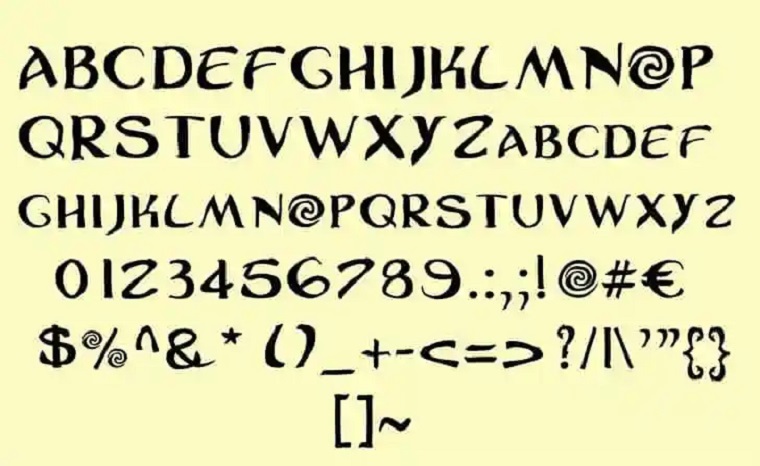
Moana’s Font is a particular type of writing that brings the spirit of the Disney movie Moana to your words. It’s like having a mini tropical vacation in every letter! These letters are designed to look like they’re part of Moana’s world, with a touch of adventure and a splash of Polynesian fun.
You can use Moana’s Font to create cool invitations for your Moana-themed parties, make colorful posters, or even write fun stories with a tropical twist.
It’s a font that’s great for kids and grown-ups who love the magic of Disney’s Moana. So, let your imagination set sail with Moana’s Font and explore the wonders of the Pacific Islands!
It is a sans-serif typeface that came into being by JoannaVu in 2016. The font was created after being inspired by one of Disney’s animated characters, Moana. Since then, the font has been used by many beginners and professional designers in their projects.
JoannaVu created this typeface many years ago.
Vaiana font is used for this purpose. That is a sans-serif typeface and has been originated many years ago.
Moana font can be applied in many places. You can use the font in Logos, Posters, Banners, websites, Headings, Titles, texts, office work, Educational work, and many other such places. Or, instead of this font, you can also use the Alice in Wonderland Font.
Moana is a worth-considering typeface that is mostly the first choice of designers. You can use this font excessively in your projects based on every level. Hence, it is undoubtedly one of the worth using typefaces.